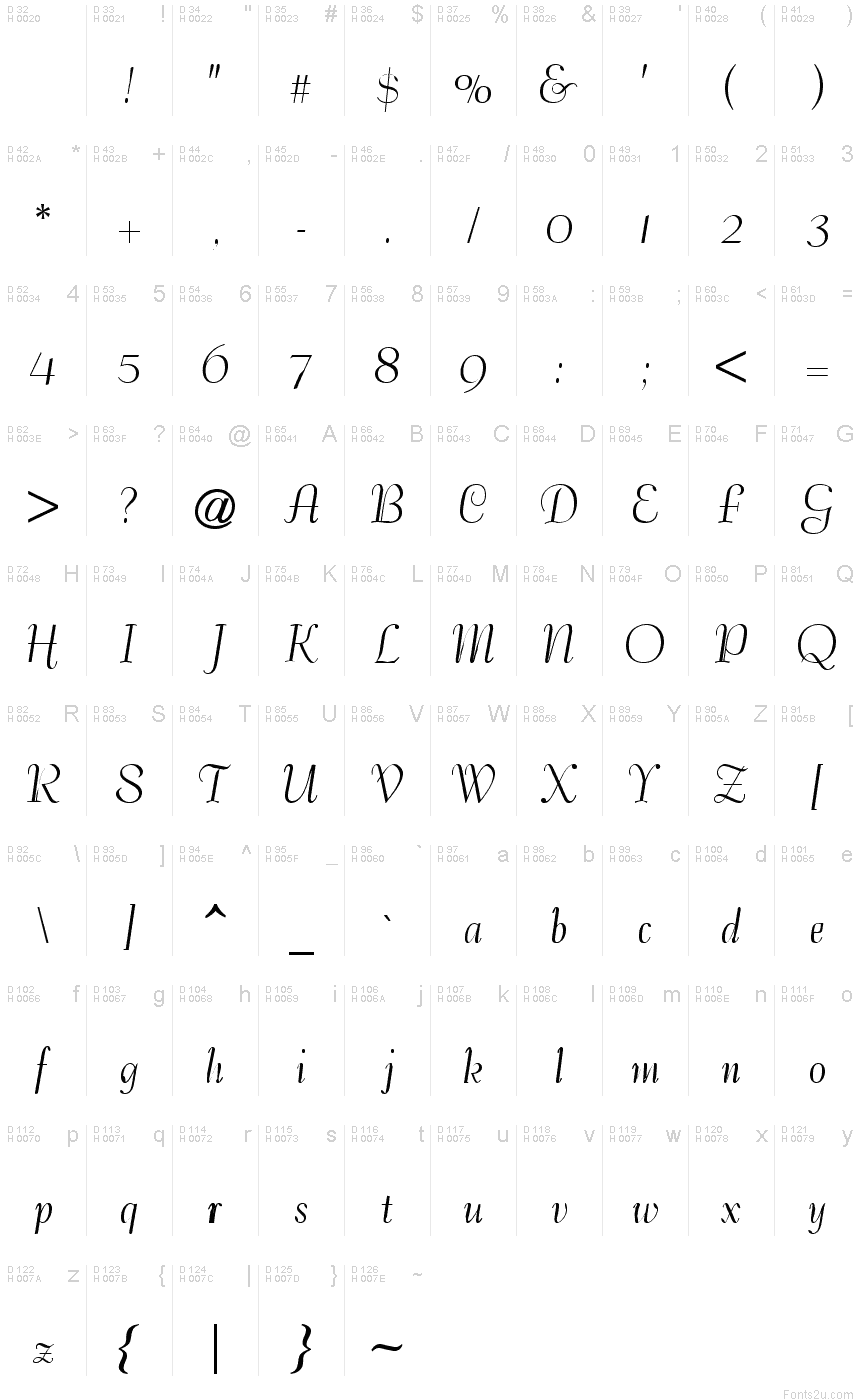
Safrole
Safrole is a free high-contrast calligraphic display font with broad, flowing curves and sharply tapered strokes. The letters feel poised and theatrical. Fine hairlines meet fuller sweeps throughout, and the smooth forms have a formal, fashion-oriented look.
Luxury branding is its most convincing setting, especially for perfume packaging, boutique signage, and formal invitations. The dramatic curves turn a name into the main feature of a label or fashion campaign, so the lettering becomes part of a refined product identity.